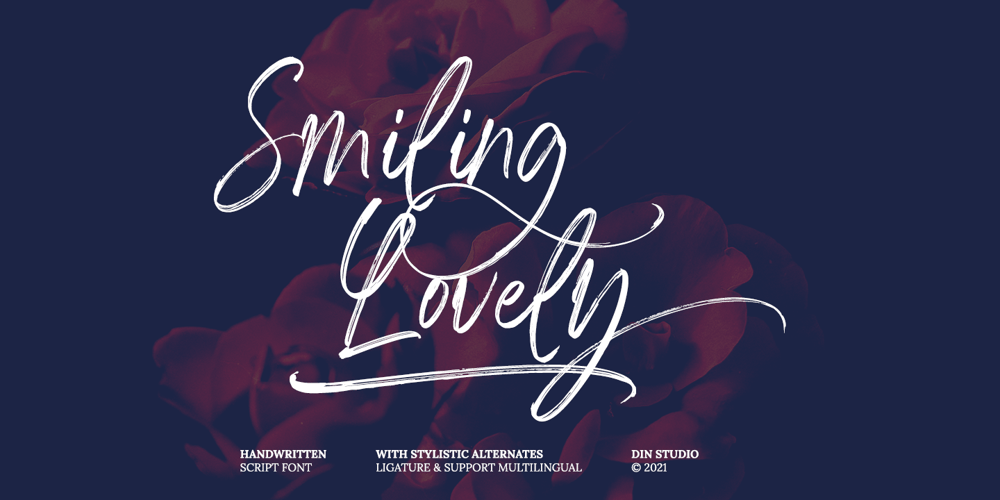
Smiling Lovely Font Family was designed by Donis Miftahudin and published by Din Studio. Smiling Lovely contains 2 styles and family package options. Smiling Lovely is an elegant, classy, modern script font of which prominent character is the combinations of brush style and handwritten curves and shapes. Unlike the other cursive fonts, Smiling Lovely’s letters are not closely interrelated for a legibility reason. This font combines uppercases and lower cases for perfectly interconnected writings. Features: Alternates Ligatures Stylistic Set Swashes Multilingual Supports PUA Encoded Numerals and Punctuation Smiling Lovely fits best for various designs, such as posters, banners, logos, book covers, album covers, headings, printed products, merchandise, clothes designs, quotes, invitations, pamphlets, greeting cards, product packages, social media, and more. Find out more ways to use this font by taking a look at the font preview. Thank you for purchasing our font and happy designing,